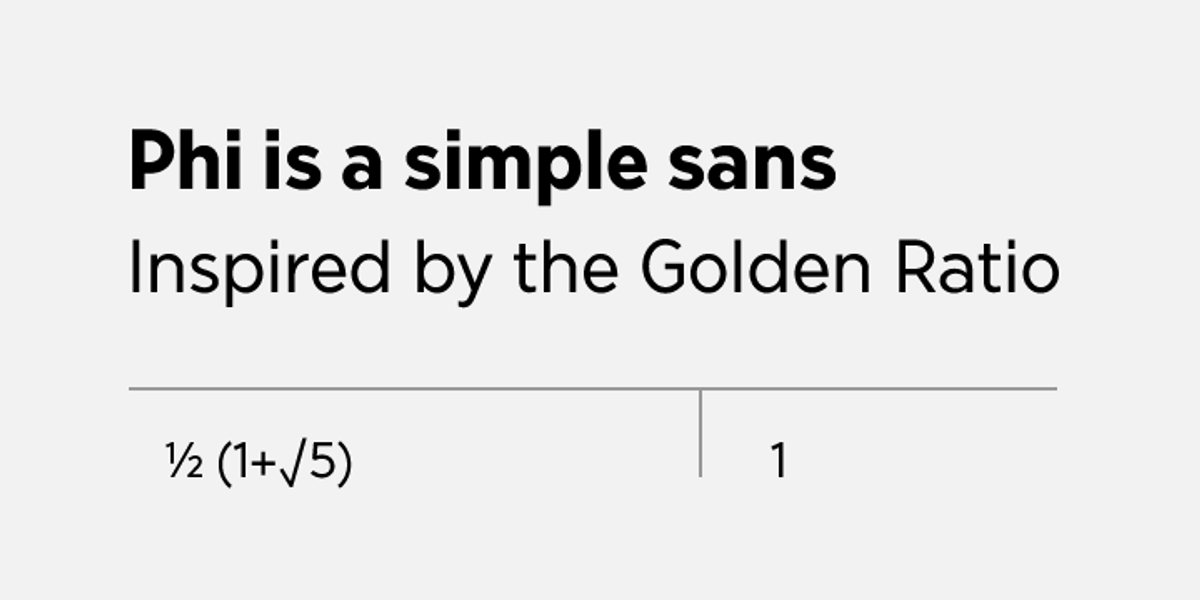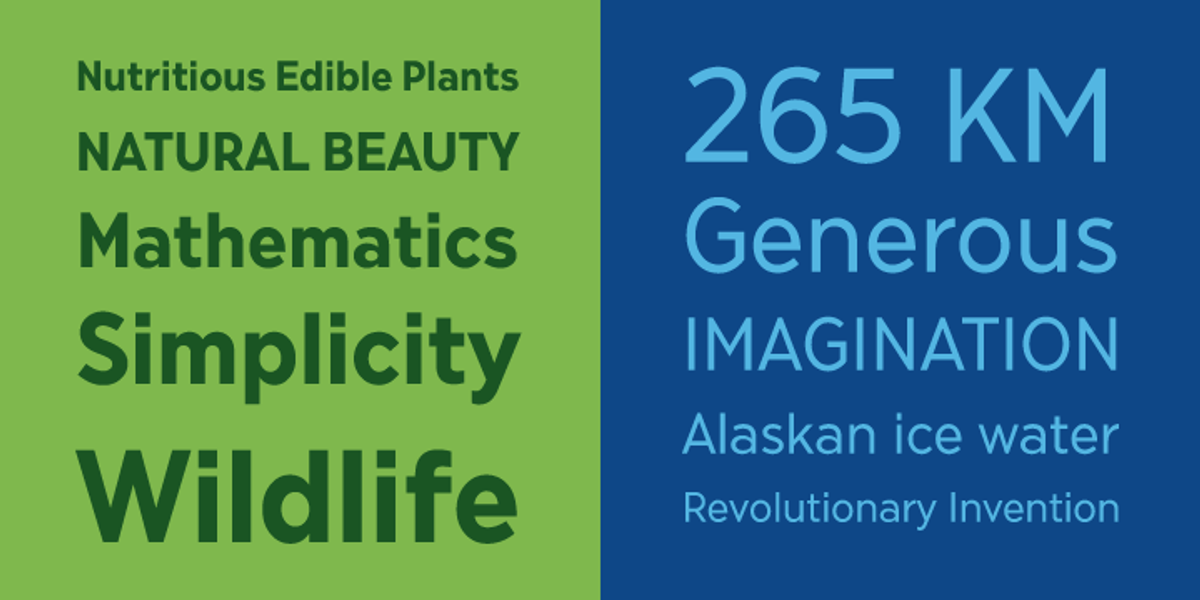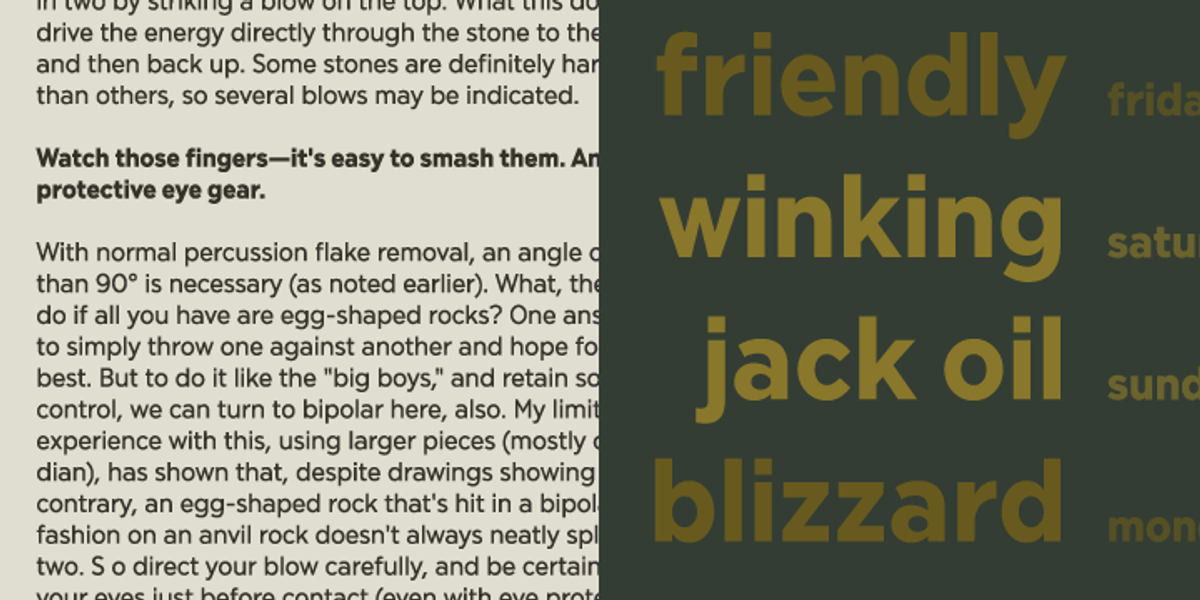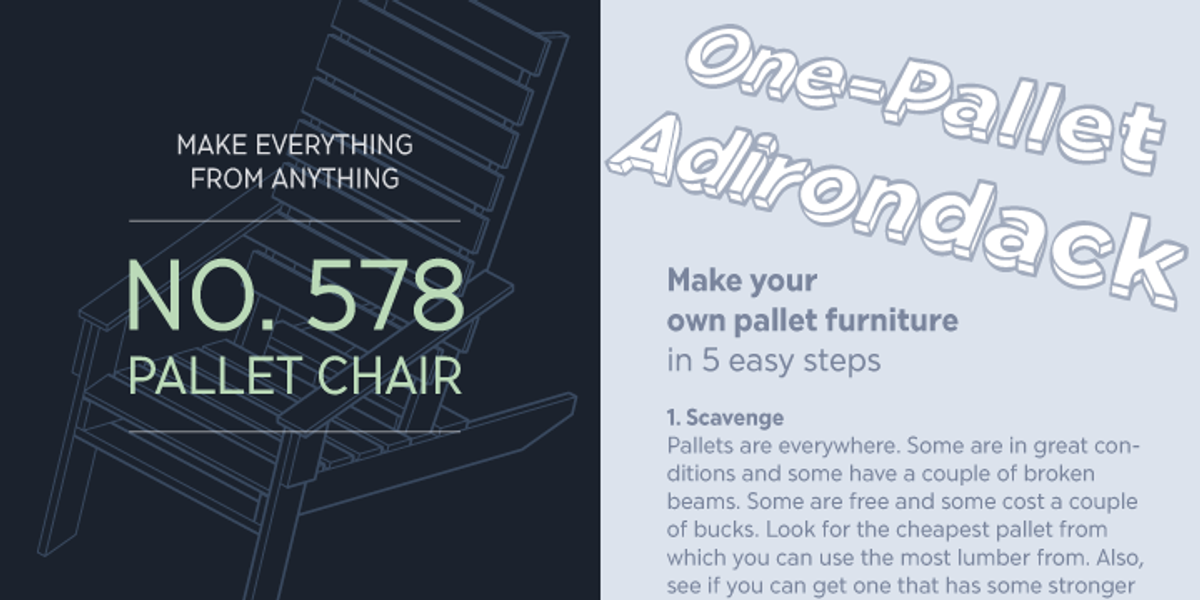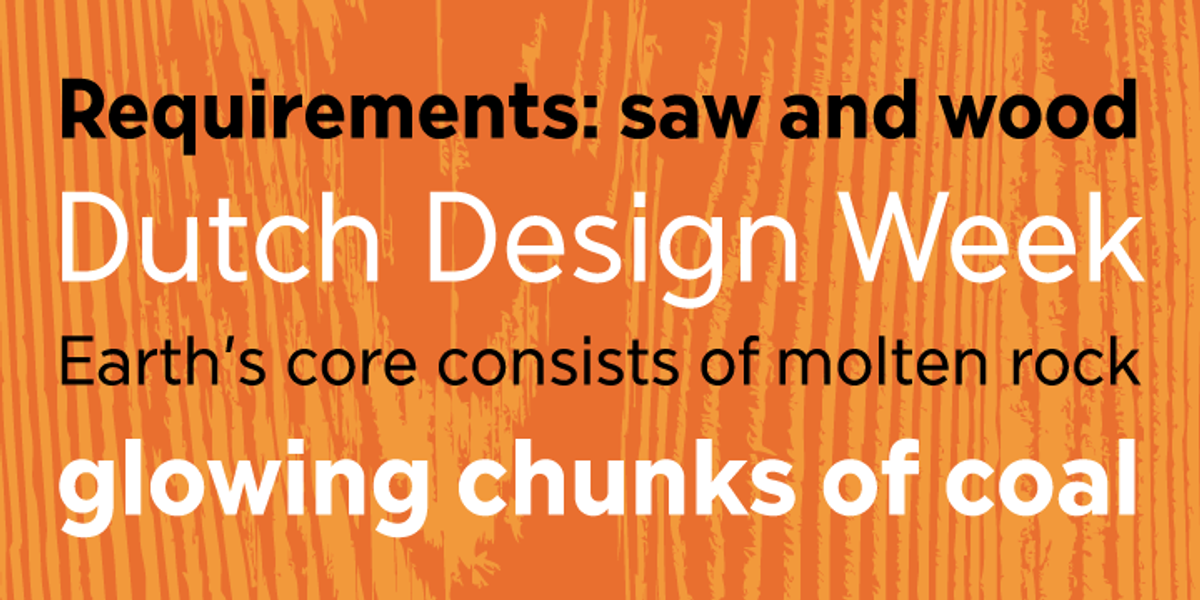
Phi is a geometric sans serif font designed for versatility and legibility. Its design inspiration draws from the Golden Ratio, resulting in harmonious proportions. Suitable for both text and display applications, Phi's neutral aesthetic makes it a solid choice for corporate branding and contemporary design projects.